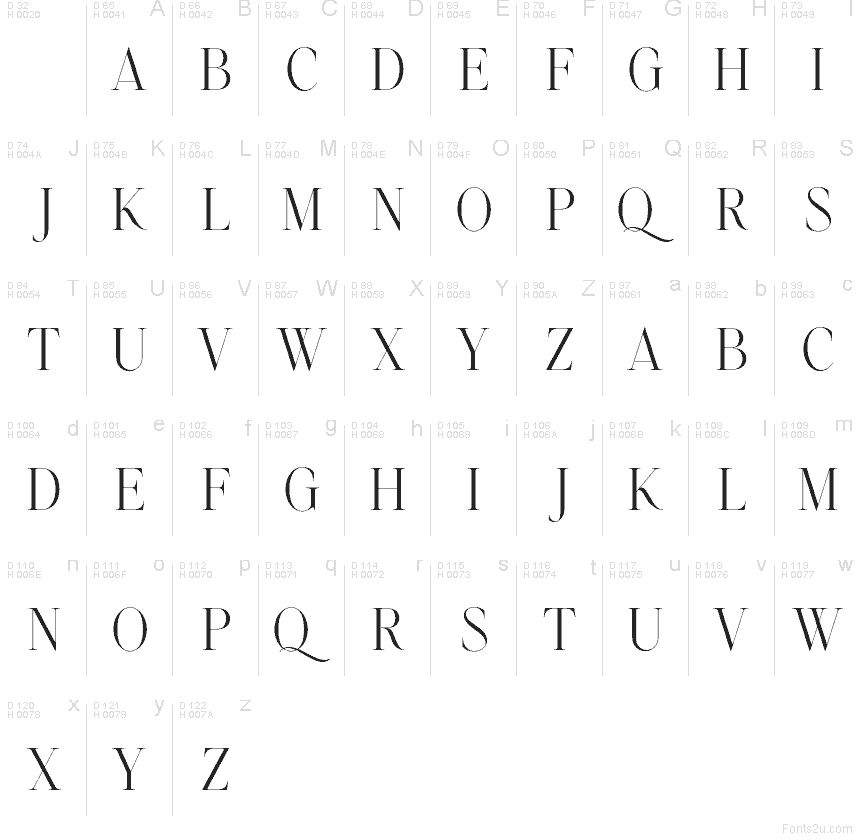
Zyntro Demo Regular
Zyntro font by VPcreativeshop is a free modern serif typeface with razor-thin lines and tall, statuesque proportions that feel like fashion editorial headlines frozen in ink. The letters are whisper-light yet sharply defined, giving every word a sense of luxury and poise, as if printed on smooth, coated stock. There’s a poised tension between the slender strokes and wide spacing that lets each character breathe while still reading as one sleek system.
Using Zyntro, your titles and wordmarks instantly pick up a runway-ready attitude that shines on magazine covers, beauty packaging, branding for boutiques, portfolio sites, posters, and invitations. This free font works beautifully when you keep it large and airy, letting those fine strokes stay crisp. For a polished system, pair Zyntro with a clean geometric sans in small text to anchor its dramatic elegance.